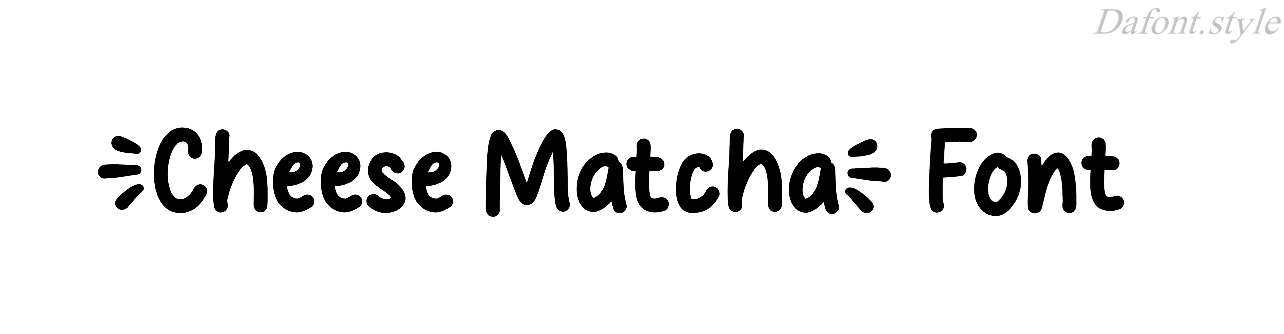
Cheese Matcha
Cheese Matcha is a cartoon font made by MJType (Muhamad Junaid) (2024). It has a cheerful, hand-drawn look that makes people smile before they even read the words. You can download it for free and test it with your own words in the preview above.
- Designer: MJType (Muhamad Junaid)
What You Can Type With Cheese Matcha
You get every letter from A to Z in both cases and all the numbers from 0 to 9, which means Cheese Matcha can handle full sentences, dates and prices. Common punctuation such as &, !, ? and @ is included as well. It also has the accented letters you need for Spanish, French, German, Portuguese and Italian.
Ligatures and Smart Letters in Cheese Matcha
Where Cheese Matcha Works Best
Think of Cheese Matcha for kids' books, birthday invites and fun YouTube thumbnails. Cartoon fonts are great for short, fun lines. If you place it over a busy photo, add a thick outline or a drop shadow so it stays readable.
Does Cheese Matcha have ligatures?
Yes. Cheese Matcha has ligatures that turn on by themselves in most design apps and browsers, so you don't need to do anything special.
Does Cheese Matcha support accented letters?
Yes. Cheese Matcha includes the accented letters needed for Spanish, French, German, Portuguese and Italian, so it works for more than just English.